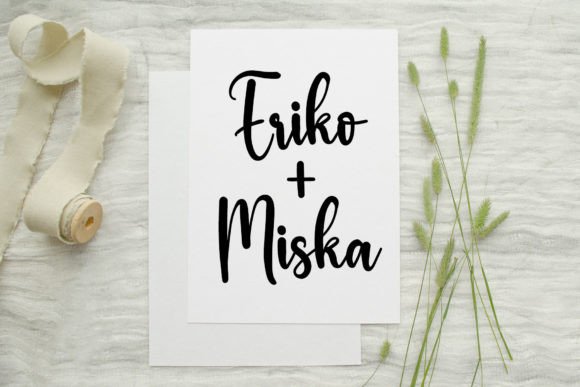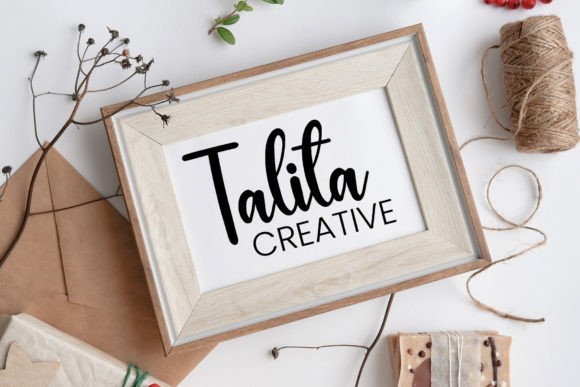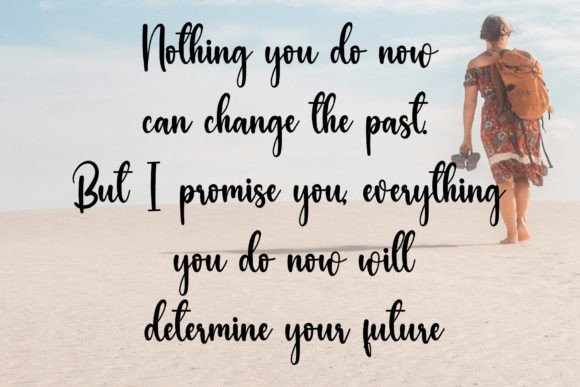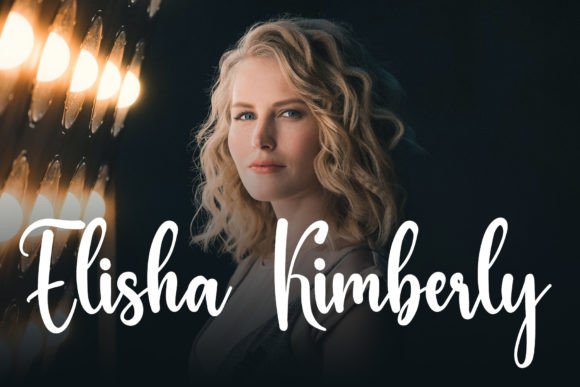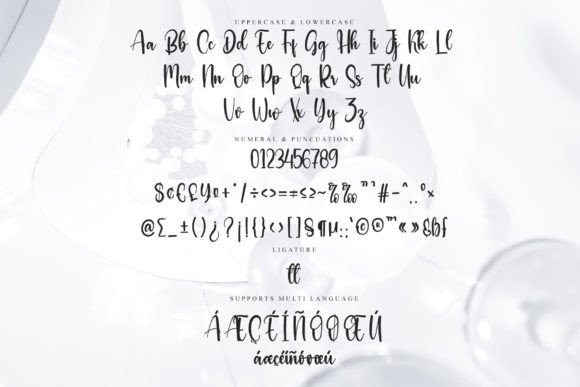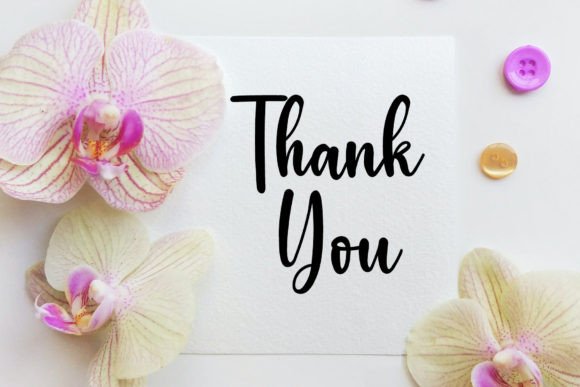
Introducing Explain: The Ultimate Handwritten Font for Creative Projects
Are you tired of using the same old fonts for your creative projects? Look no further! Explain is a stylish and modern handwritten font that is perfect for a wide range of applications. From greeting cards to headlines, branding, and packaging, this font is sure to add a touch of happiness to each of your creations.
What Makes Explain Special?
Explain is a unique and versatile font that is designed to make your projects stand out. Its modern and stylish handwritten design makes it perfect for a variety of creative applications. Whether you’re a designer, crafter, or DIY enthusiast, Explain is the perfect font to add a personal touch to your work.
One of the best features of Explain is that it is PUA (Private Use Area) encoded. This means that you can access all of the amazing glyphs and ligatures with ease. PUA encoding allows you to use the font’s extended character set, which includes a wide range of alternative letters, numbers, and symbols. This makes it easy to add a unique touch to your projects and make them more visually appealing.
Explain is a versatile font that can be used for a wide range of applications. Here are just a few ideas to get you started:
- Greeting Cards: Add a personal touch to your greeting cards with Explain’s stylish and modern handwritten design.
- Headlines: Use Explain to create eye-catching headlines for your blog posts, articles, and social media updates.
- Branding: Use Explain to create a unique and memorable brand identity for your business or personal project.
- Packaging: Add a touch of personality to your product packaging with Explain’s fun and modern design.
Why Choose Explain?
There are many reasons why you should choose Explain for your creative projects. Here are just a few:
- Unique Design: Explain has a unique and stylish handwritten design that will make your projects stand out.
- Easy to Use: Explain is PUA encoded, making it easy to access all of the amazing glyphs and ligatures.
- Versatile: Explain can be used for a wide range of applications, from greeting cards to headlines and branding.
- High-Quality: Explain is a high-quality font that is designed to deliver exceptional results.
Tips for Using Explain
Here are a few tips for using Explain in your creative projects:
- Experiment with Different Sizes: Explain looks great in a variety of sizes, from small and delicate to large and bold.
- Mix and Match: Don’t be afraid to mix and match Explain with other fonts to create a unique and interesting look.
- Use the Glyphs and Ligatures: Take advantage of Explain’s PUA encoding to add a touch of personality to your projects.
In conclusion, Explain is a stylish and modern handwritten font that is perfect for a wide range of creative applications. Its unique design, PUA encoding, and versatility make it a great choice for designers, crafters, and DIY enthusiasts. Whether you’re looking to add a personal touch to your greeting cards, headlines, branding, or packaging, Explain is the perfect font for the job.